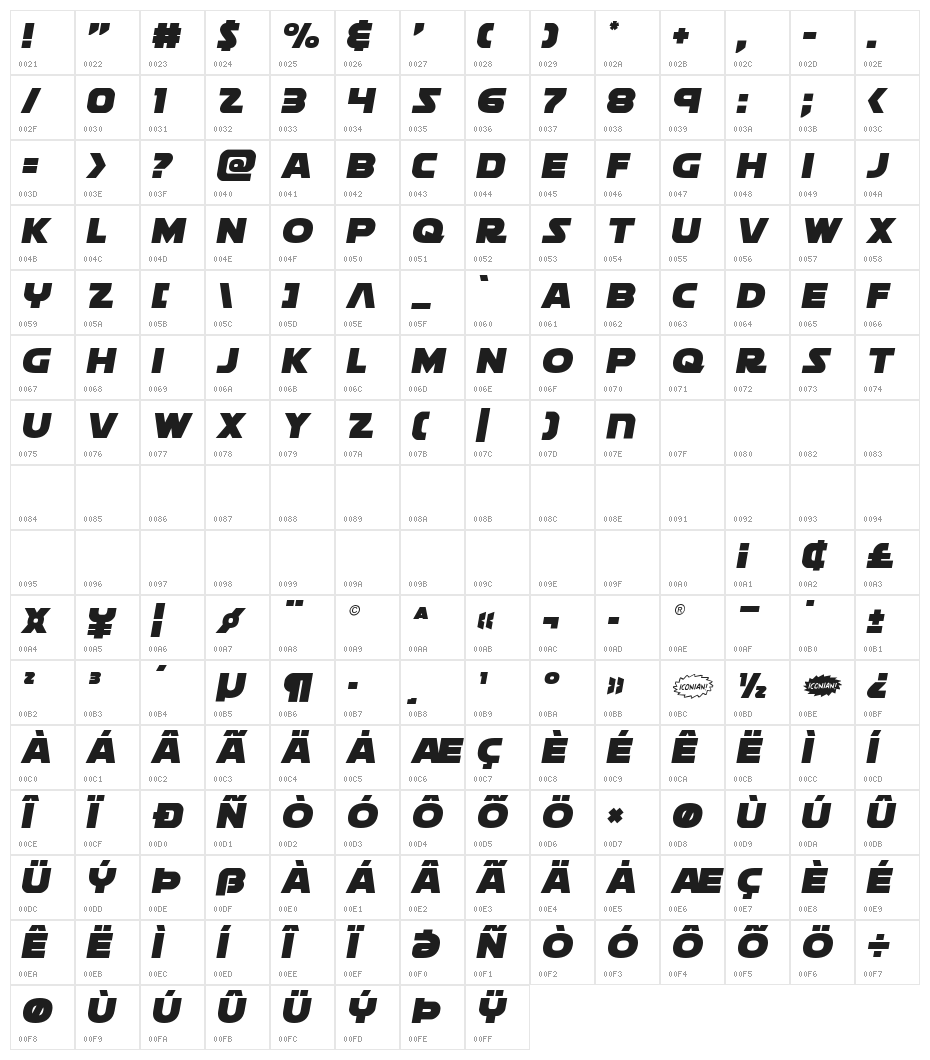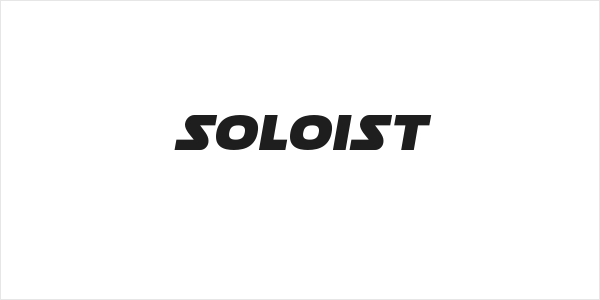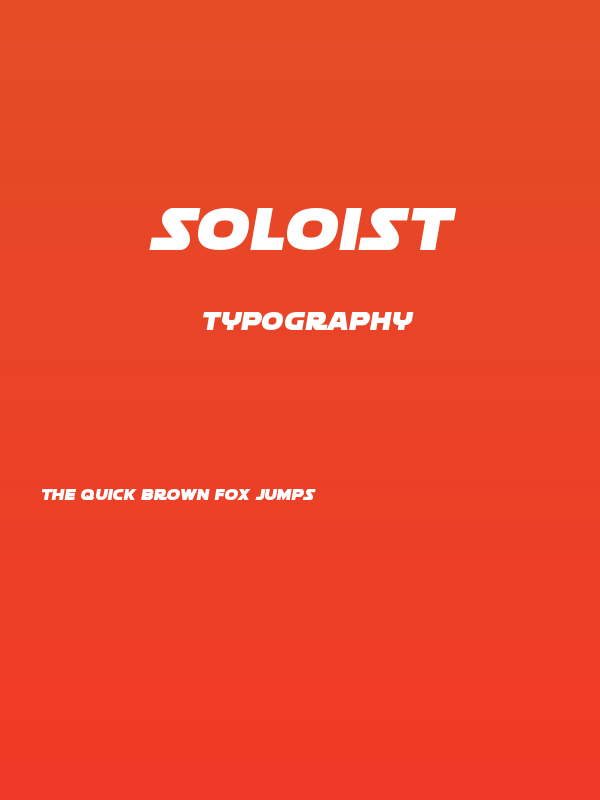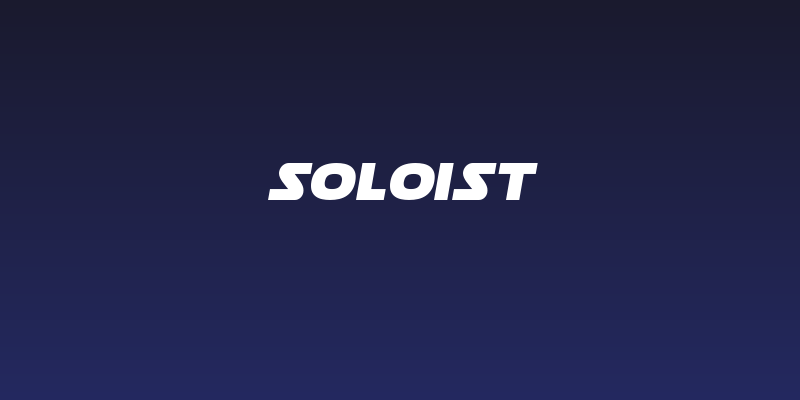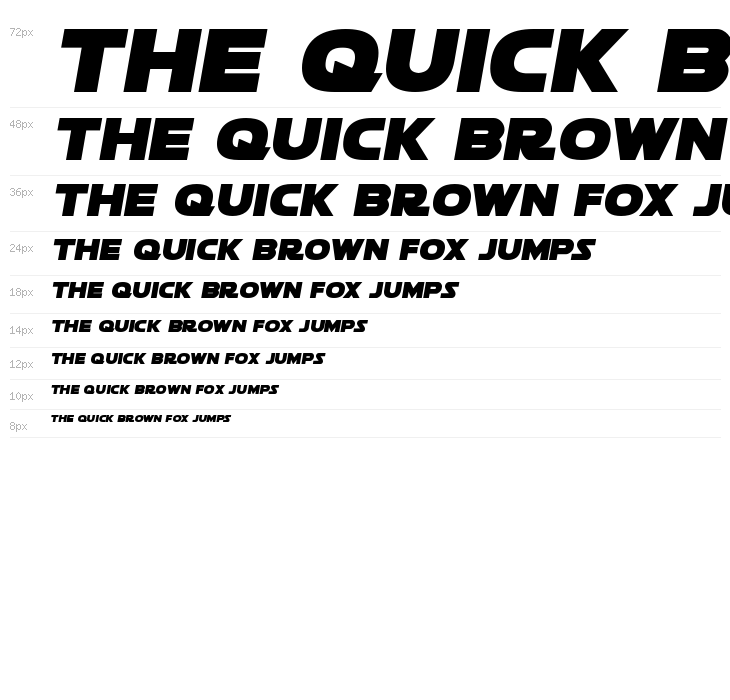
Soloist Font
Soloist Description
This font features a bold and dynamic style with a strong emphasis on angular lines and sharp edges. The characters are slightly italicized, giving a sense of movement and speed. The uppercase and lowercase letters maintain a consistent weight, contributing to a cohesive and powerful appearance. The numerals and special characters follow the same design principles, ensuring uniformity across all glyphs. This font is ideal for projects that require a modern and assertive look, such as sports branding, automotive advertising, or dynamic event posters.
Proposed ProjectsIdeal for sports branding, automotive advertising, and dynamic event posters.